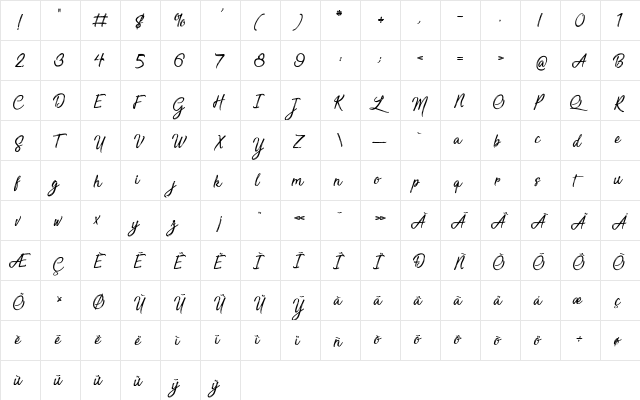
Sensations and Qualities Regular
| Foundry | Octotype |
| Designer | Octotype |
Design Context for Sensations and Qualities Typeface
Sensations and Qualities is a composed and adaptable typeface that performs quietly and consistently across a wide range of design contexts.